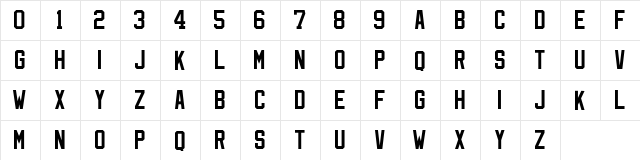
NHL St Louis Regular Font Preview
NHL St Louis Regular
Design Context for NHL St Louis Typeface
NHL St Louis takes a measured approach to typography — its balanced proportions and neutral character make it a reliable workhorse for both digital and print work.